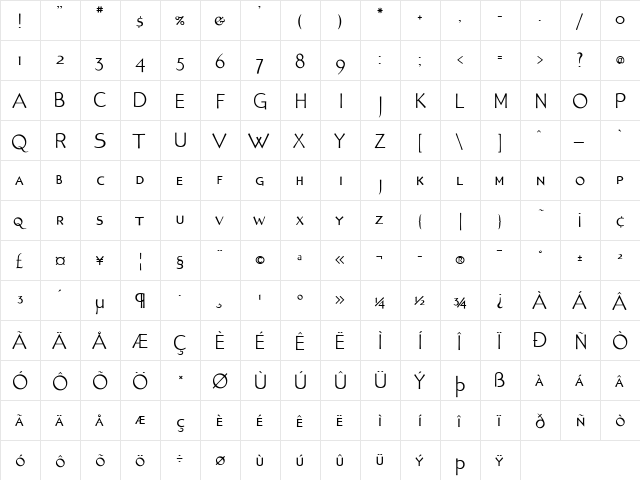
Tonic Regular
Design Context for Tonic Typeface
Tonic offers clean, dependable letterforms without strong stylistic allegiance, making it a practical choice for designers who need flexibility.
Pro Tip: Use Tonic in both headline and body roles to test its range before committing to a single application.